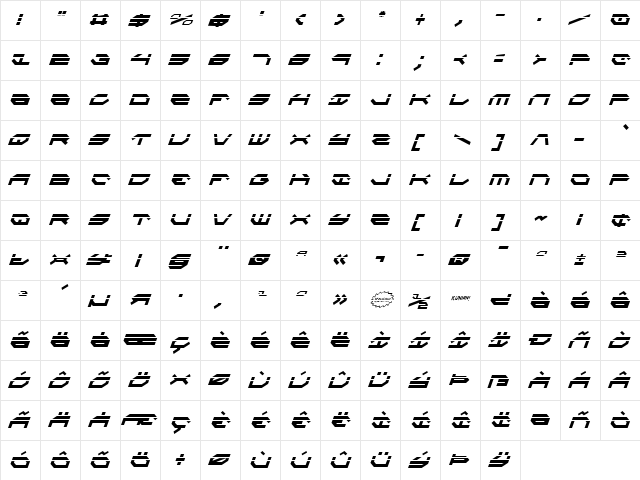
Taskforce Laser CondItal CondItal
Design Context for Taskforce Laser CondItal Typeface
Taskforce Laser CondItal brings high-energy athletic personality to the page — its confident, muscular forms are built for impact. Its narrow stance lets it pack a punch even in space-constrained designs.
Built for sports team identities, athletic apparel, event posters, and high-energy promotional material.
Pro Tip: Taskforce Laser CondItal thrives on contrast — try it large, bold, and tight against a clean background for maximum visual impact.